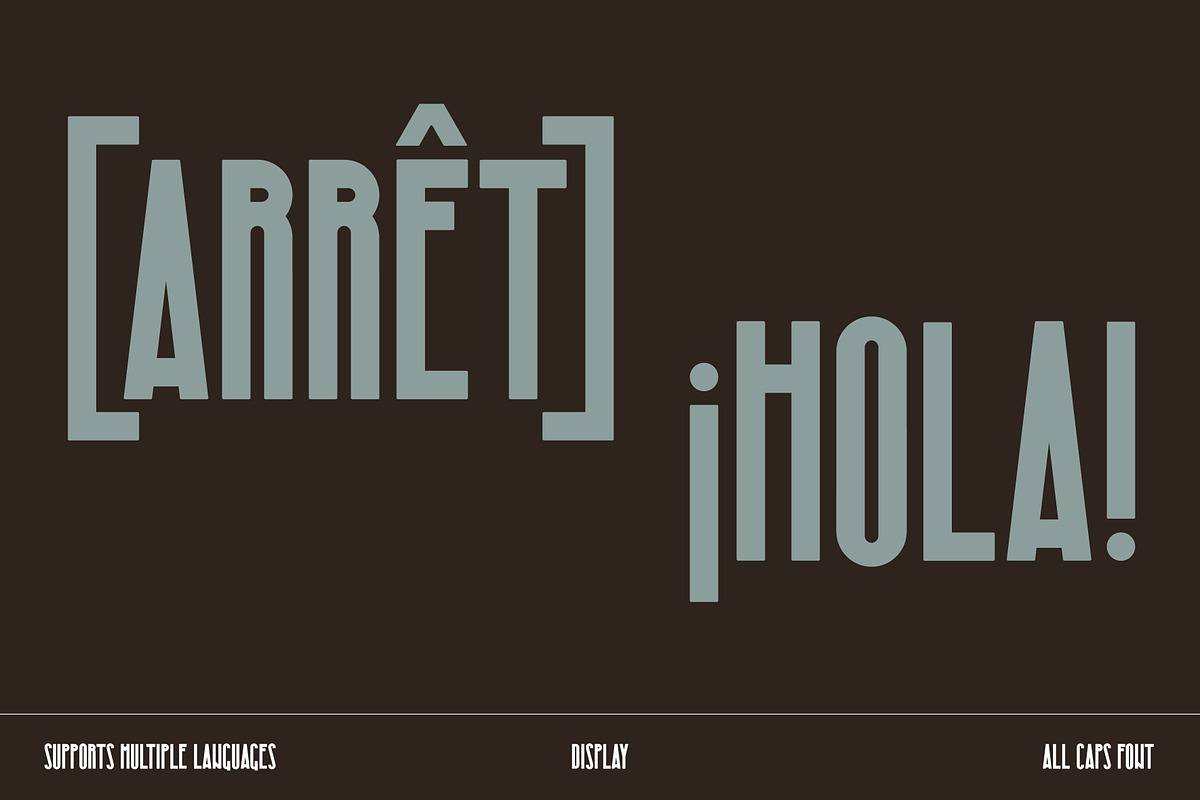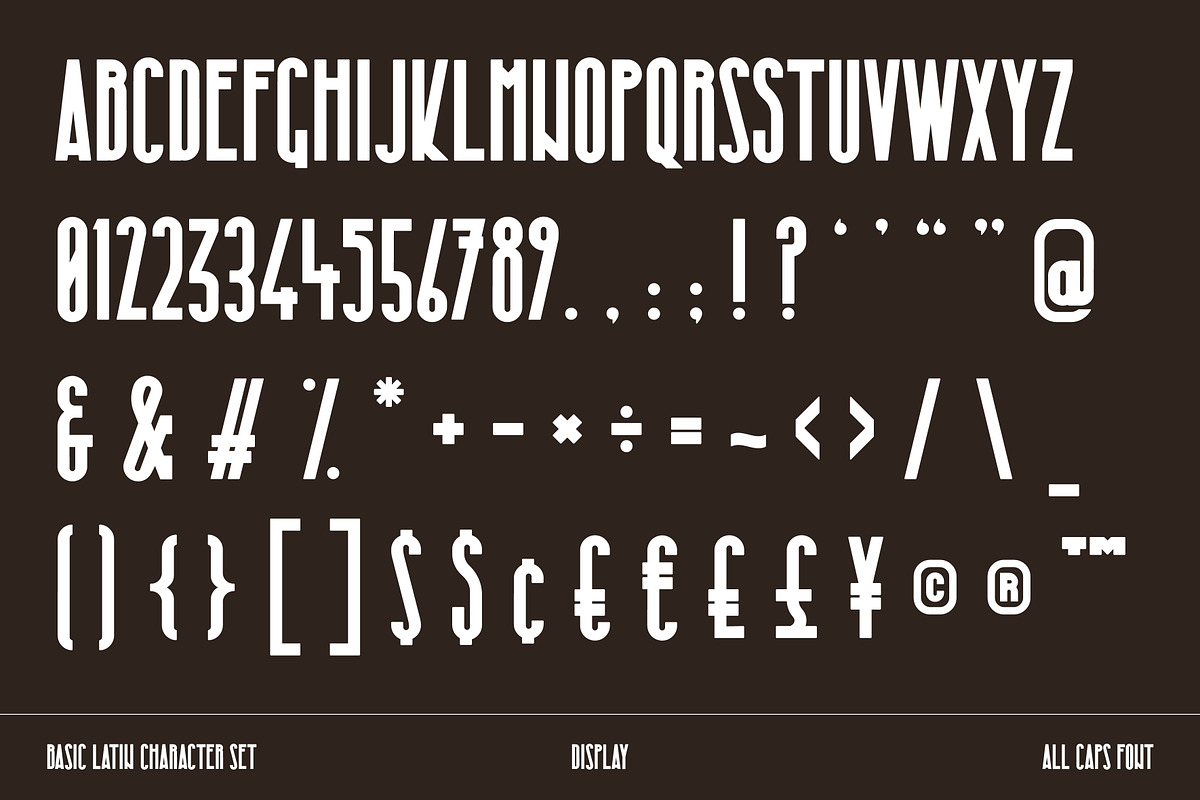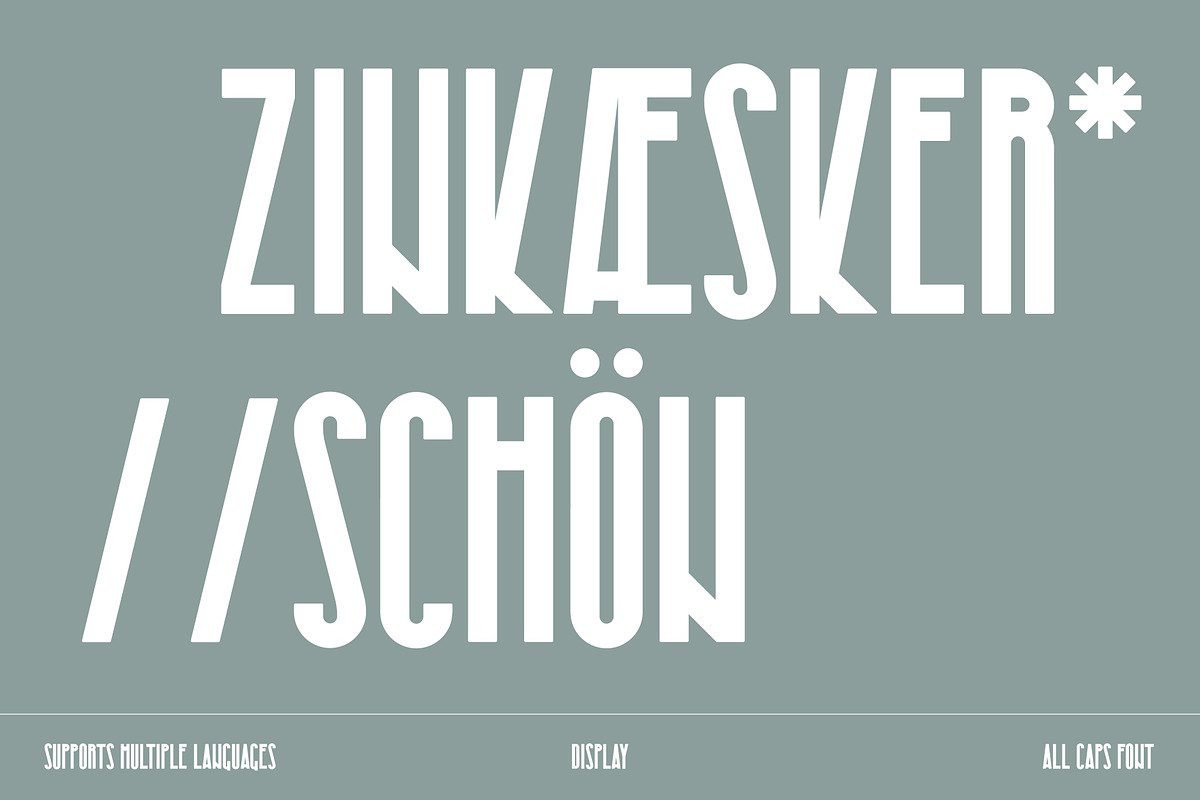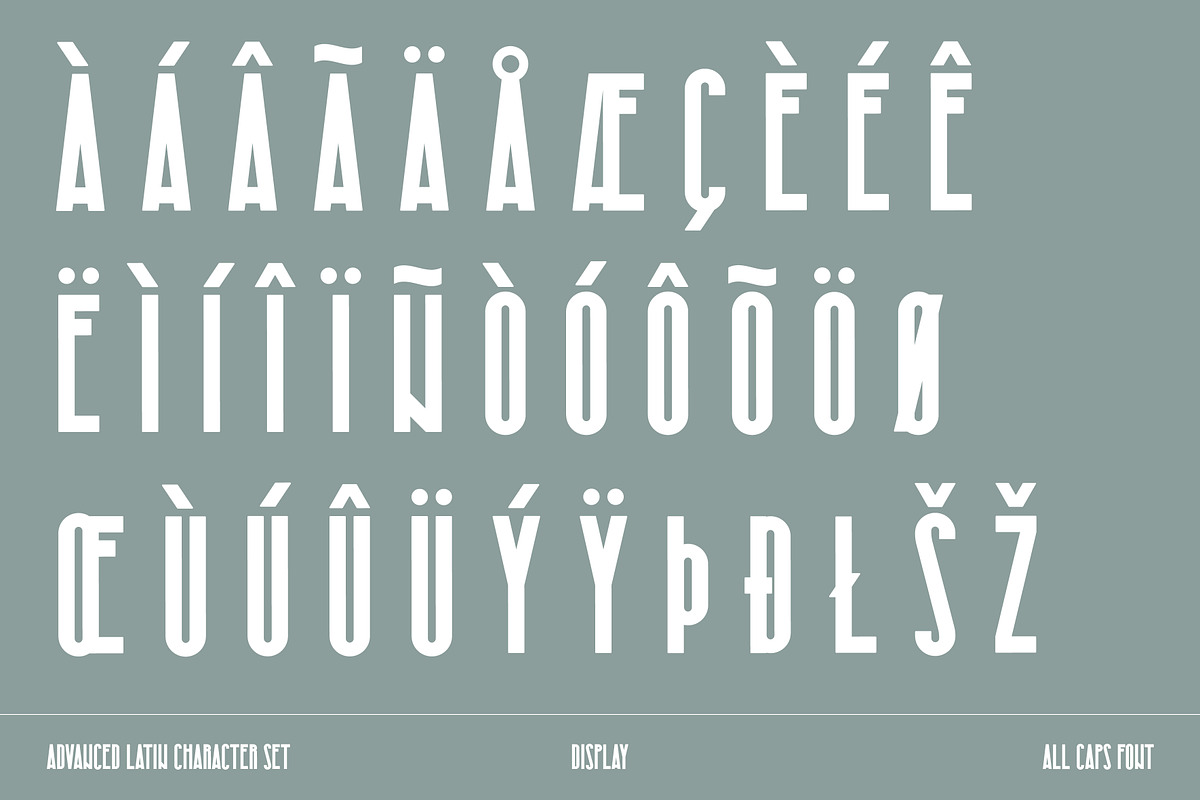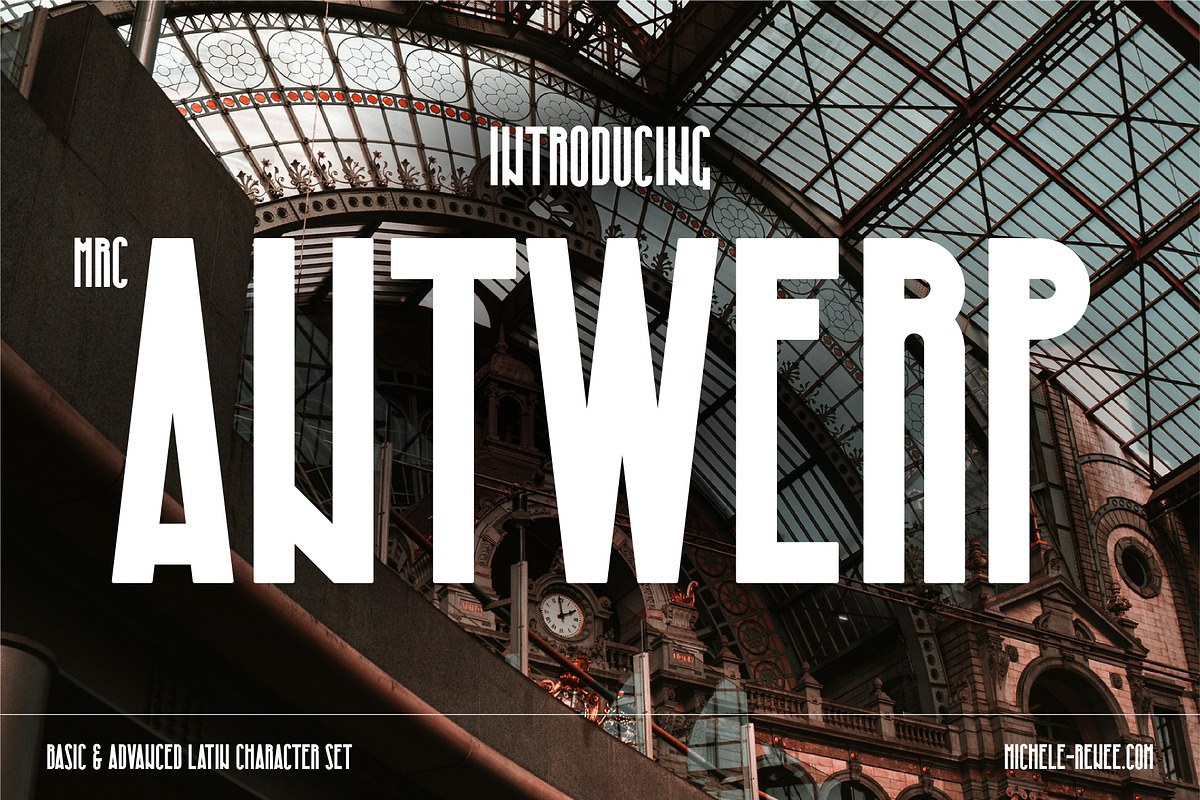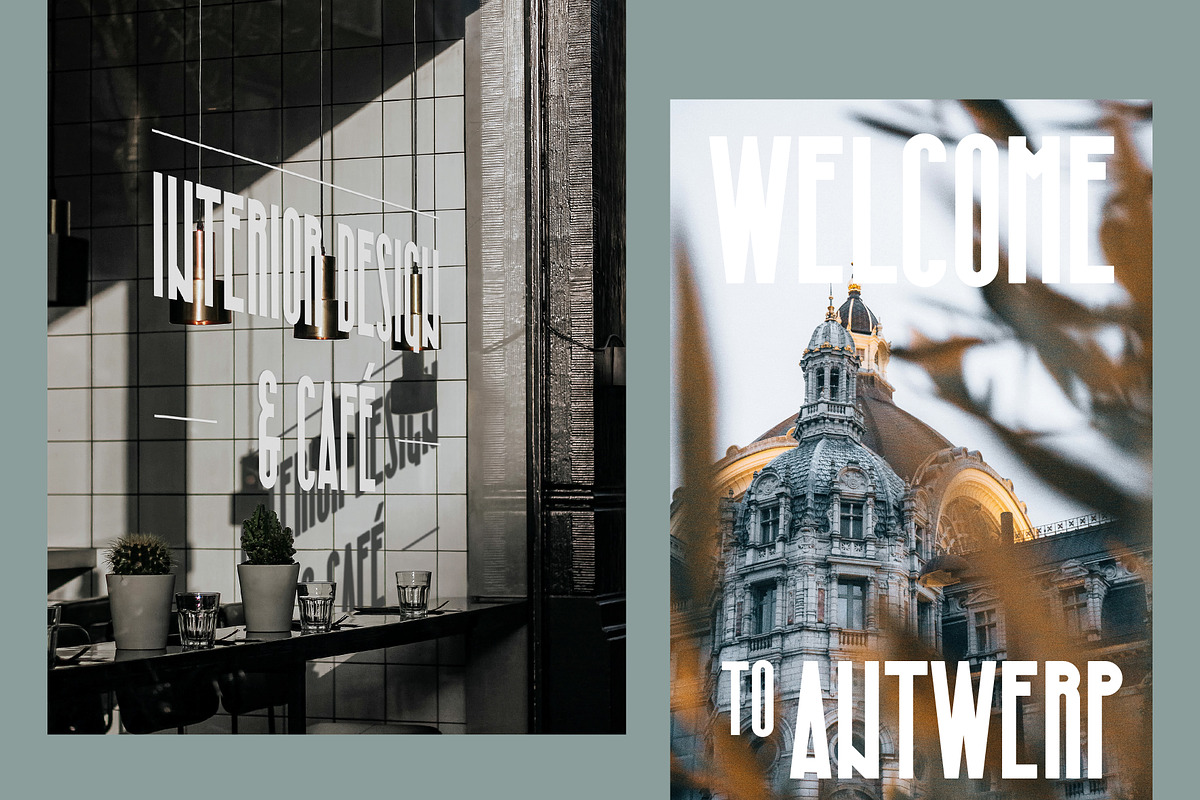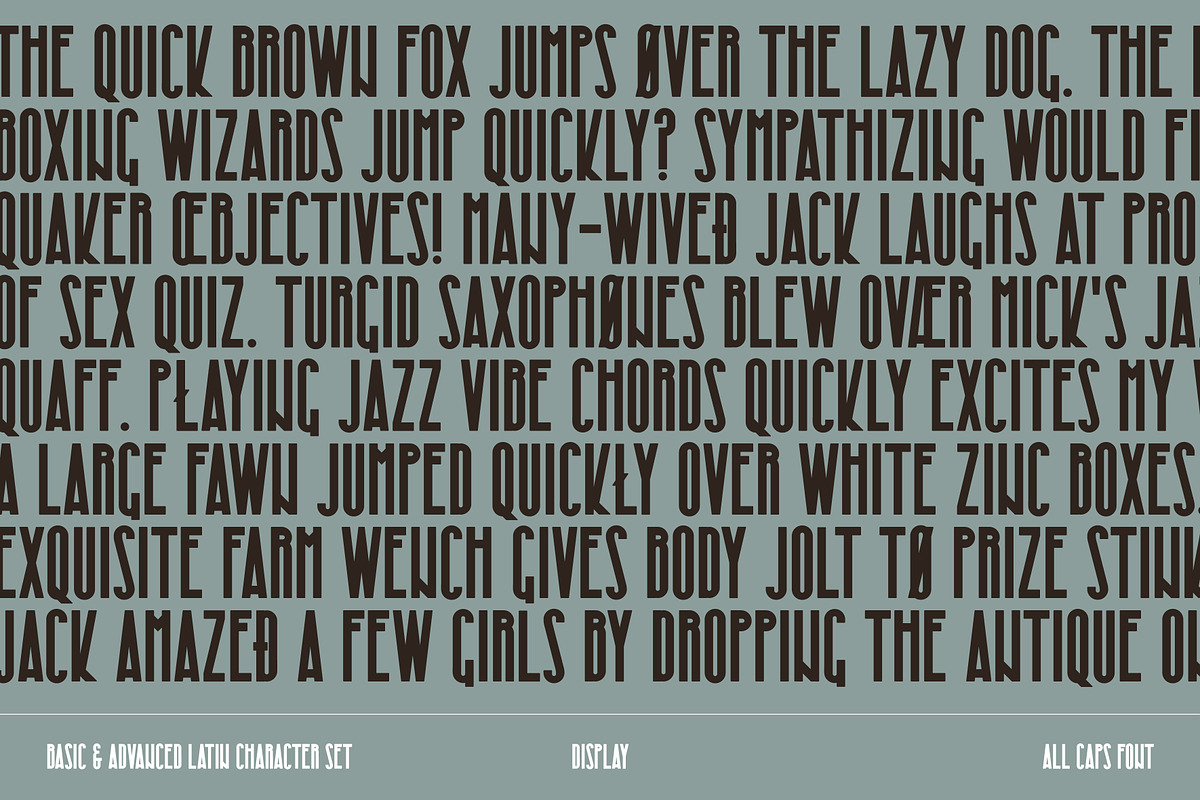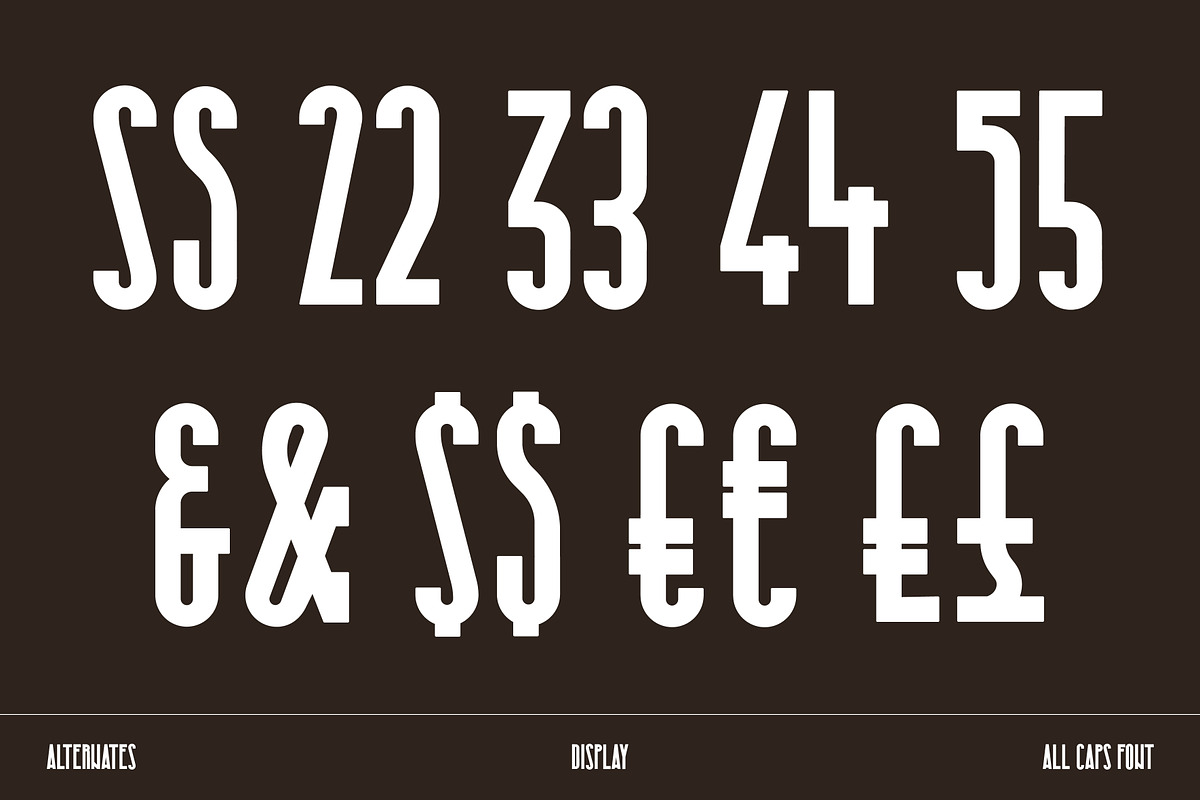
MRC Antwerp
Meet MRC Antwerp: a bold, modern typeface with a vintage twist. Think speakeasies, cocktails and 1930’s vibes brought into the present day. Perfect for eye-catching headlines, logos, and creative projects that demand attention. Make your designs stand out with MRC Antwerp's confident shapes and timeless character!
- A full uppercase display font, with Basic and Advanced Latin character sets and a few alternates thrown in: So many creative options to create stand out work!
- Supports 30+ languages: So you can use it in many corners of the globe.
- Handcrafted with love: Designed from scratch to be truly original and full of character.
- Perfect for any project: Whether it’s branding, logos, packaging, posters, social media, or more - this font’s got you covered!
MRC Antwerp supports over 30 languages, including:
- English, French, Spanish, Portuguese, Italian, German, Dutch
- Scandinavian languages (Danish, Norwegian, Swedish, Icelandic, Finnish)
- Central & Eastern European languages (Polish, Czech, Slovak, Slovenian, Croatian, Bosnian, Hungarian, Romanian, Lithuanian, Latvian, Estonian)
- Other languages (Turkish, Albanian, Basque, Catalan, Galician, Welsh, Irish, Maltese)